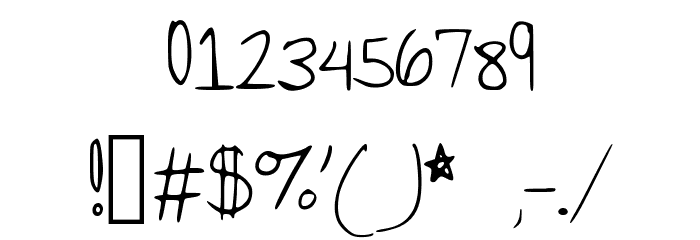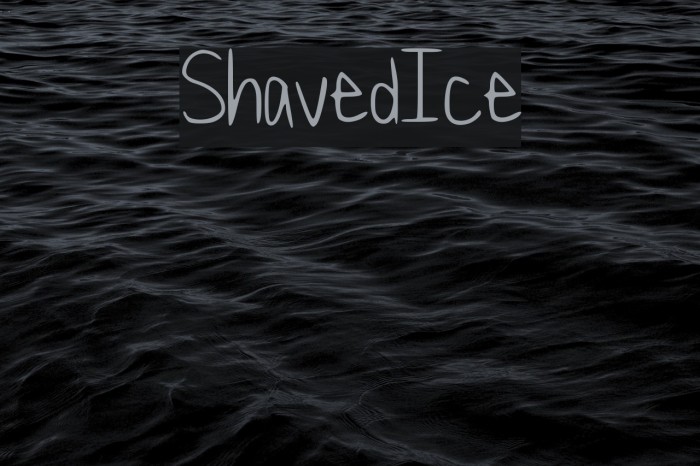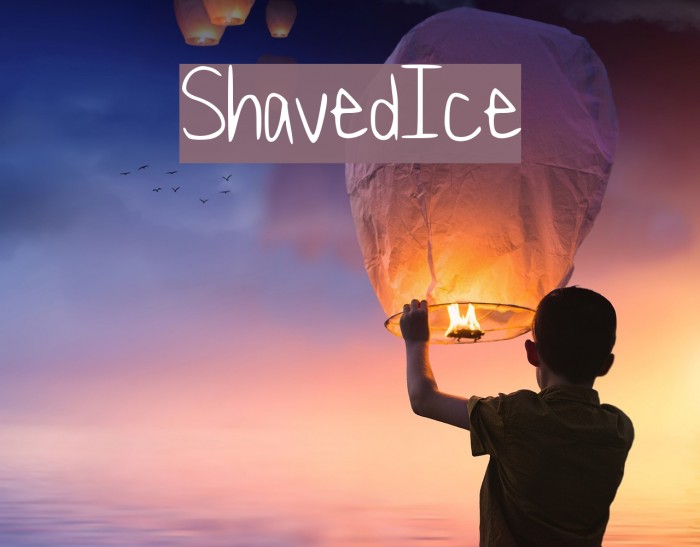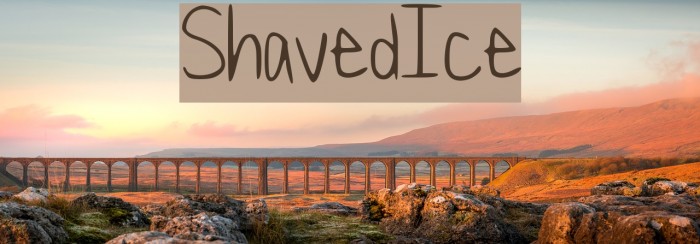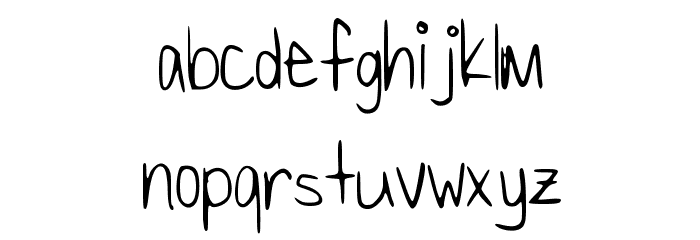
ShavedIce Font
ShavedIce Description
This font features a playful and casual handwritten style, characterized by its irregular strokes and slightly uneven baseline. The letters have a whimsical charm, with a mix of rounded and angular elements that give it a unique personality. The uppercase letters are tall and narrow, while the lowercase letters maintain a consistent flow, enhancing readability. The numerals are distinct and easy to distinguish, matching the overall playful aesthetic. Special characters are creatively designed, adding to the font's versatility. This font is perfect for projects that require a personal touch or a fun, informal vibe.
| Overall Style | Casual |
| Use Case | Headlines, Informal text, Creative projects |
| Proposed Projects | Ideal for greeting cards, children's books, playful branding, and casual invitations. |